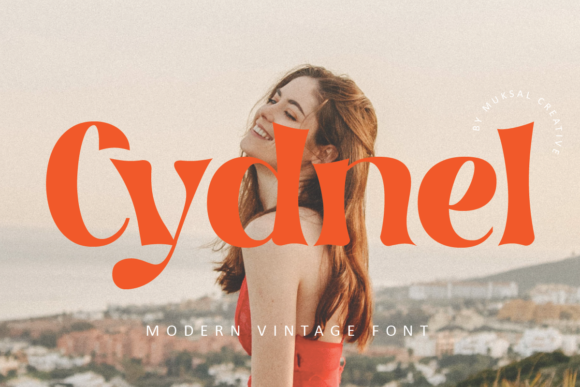
Say hello to Cydnel Font – an exquisite display font family that holds the key to unlocking your creative potential. This modern, vintage-inspired font, brought to life by the talented Muksal Creative, is adorned with special glyphs, captivating ornaments, and supports a range of languages, making it a global communicator.
Cydnel Font is more than just a font; it's an artistic journey, an expression of your individuality. Dive into a world where creativity knows no bounds, and transform your designs into masterpieces. Whether you're a seasoned designer or just starting your creative adventure, Cydnel Font will guide you with its versatility and charm.
Visualize your creations adorned with Cydnel Font. Enchanting logos that speak volumes, clothing brands that exude personality, product packaging that tells a story, magazine headers that leave a lasting impression – Cydnel Font brings your vision to life. Experience the joy of seamless adaptability, whether you're working with large or small sizes, Cydnel Font adapts effortlessly, making it the perfect choice for a multitude of projects.
Cydnel Font is the ultimate companion for editorial projects. Its elegant curves and sharp serifs add a touch of sophistication and timeless beauty to your words. Unleash your imagination and craft captivating headlines, quotes, and entire articles that dance off the page, leaving readers captivated by your storytelling prowess.
With Cydnel Font, you'll discover endless possibilities for artistic expression. Its versatility knows no limits, allowing you to weave your creative magic into a symphony of visual delight. Embrace the allure of Cydnel Font today and embark on a creative journey that will redefine your design horizons and captivate the hearts and minds of your audience.